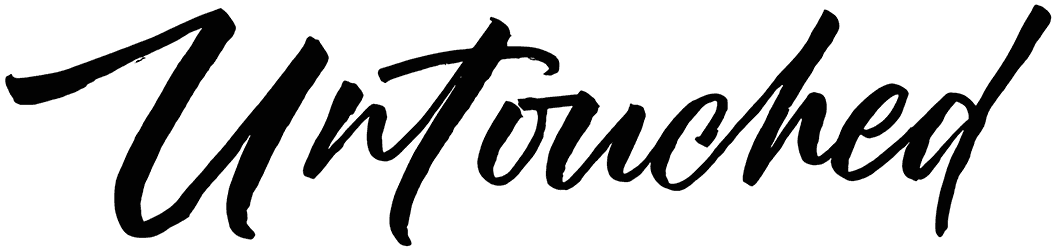
Untouched Font
As an all-purpose item, this brush font with its realistic and cursive visual will be a nice selection for varied modern projects. The letters are smooth and appealing but it doesn’t support some numbers. Test the Untouched font for your new design of an art gallery sign, or whatnot and show off your creativity.